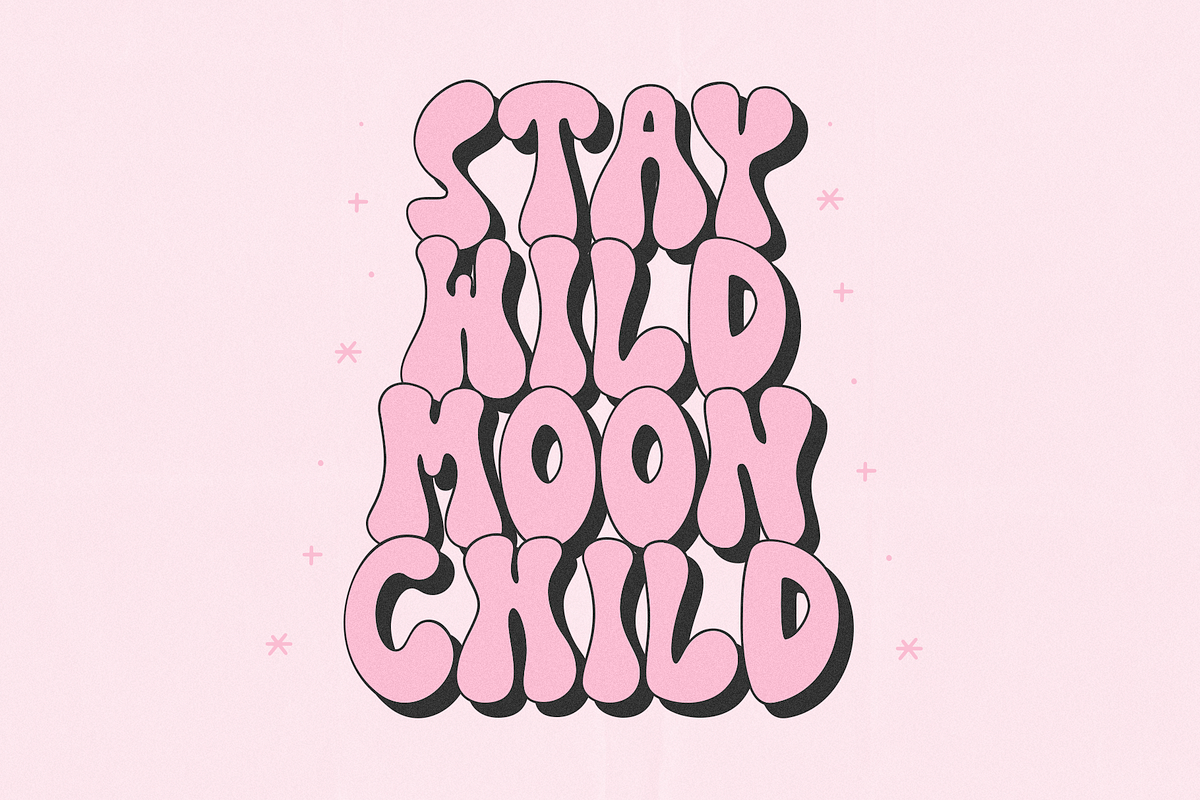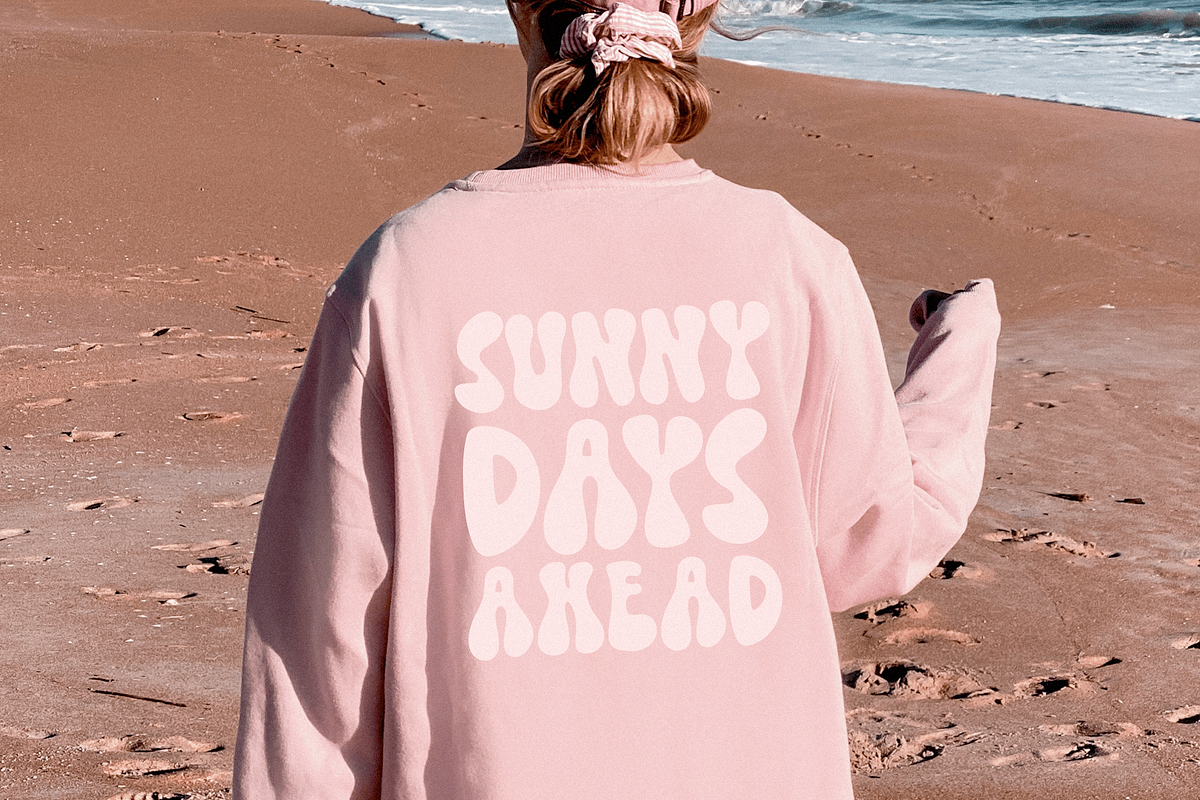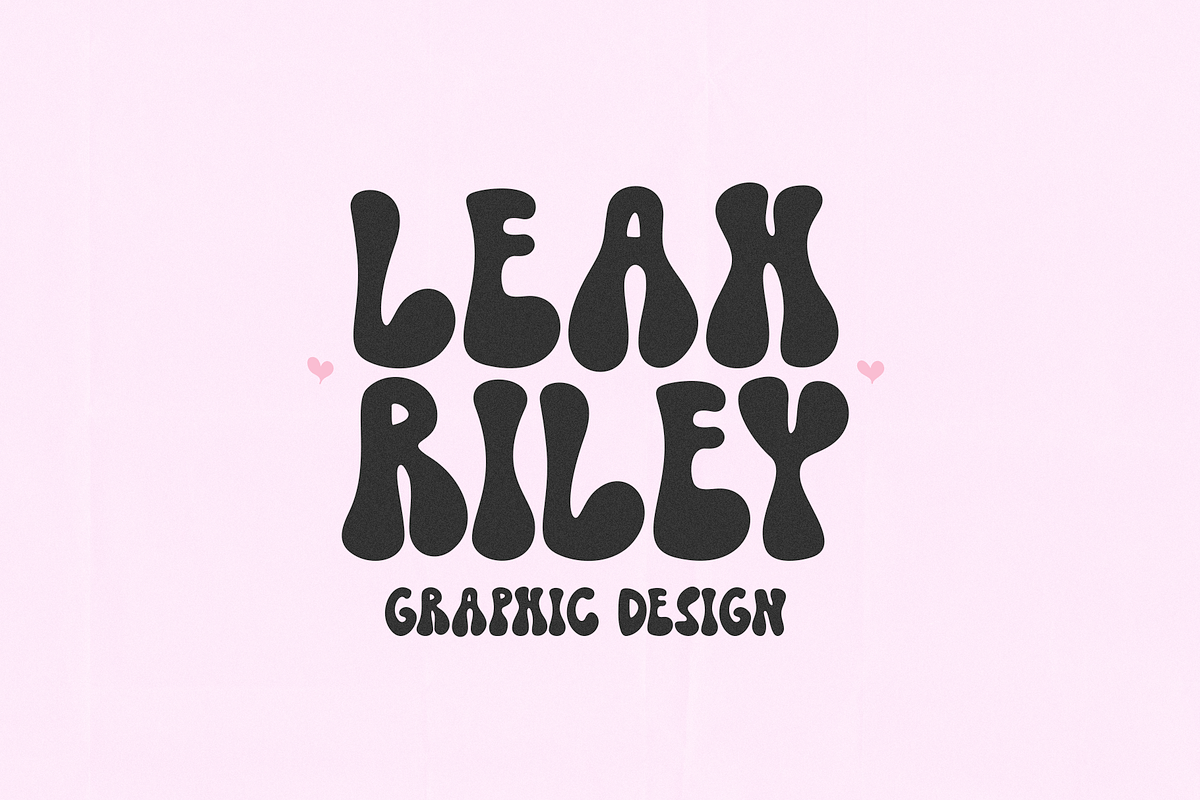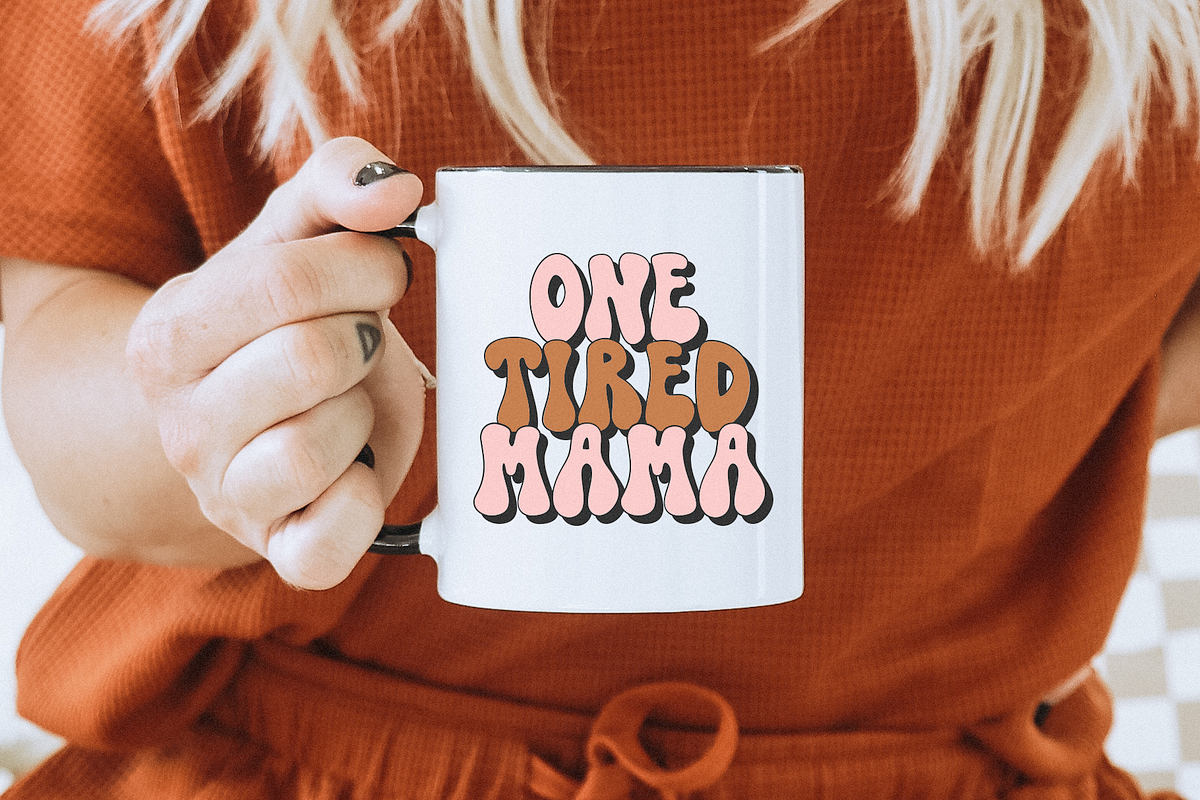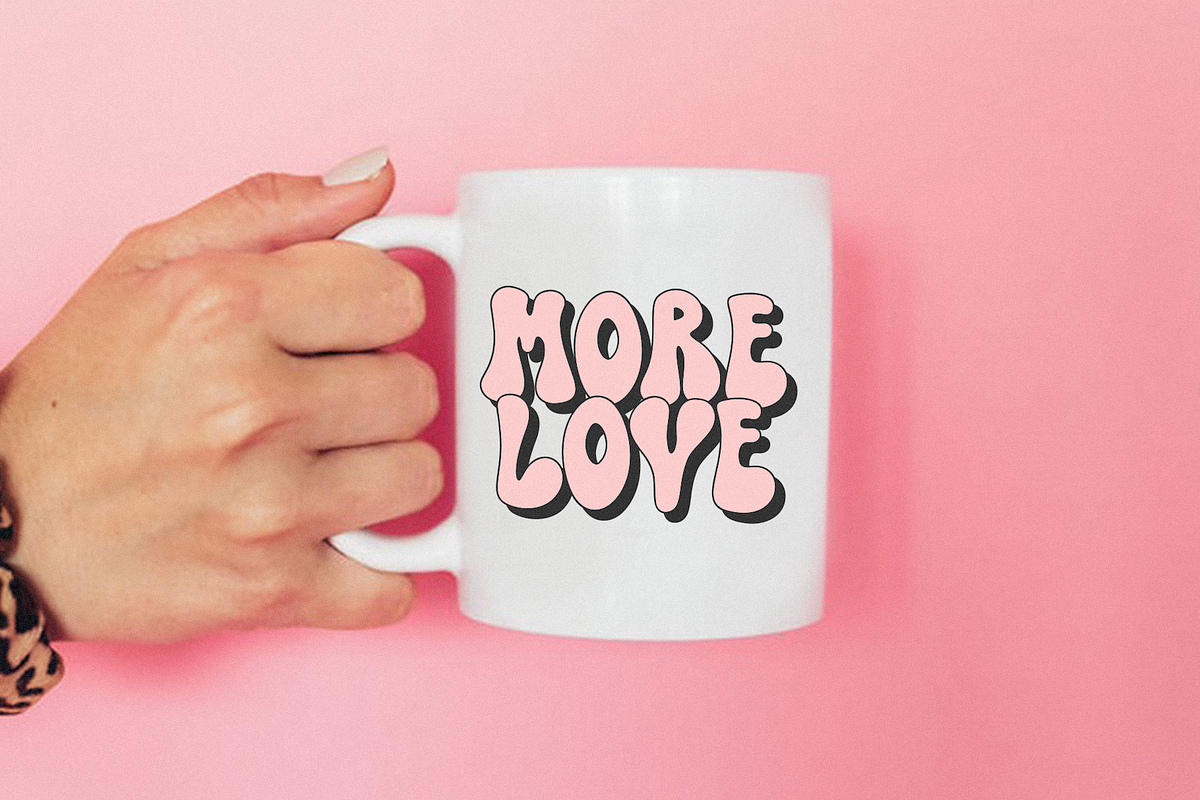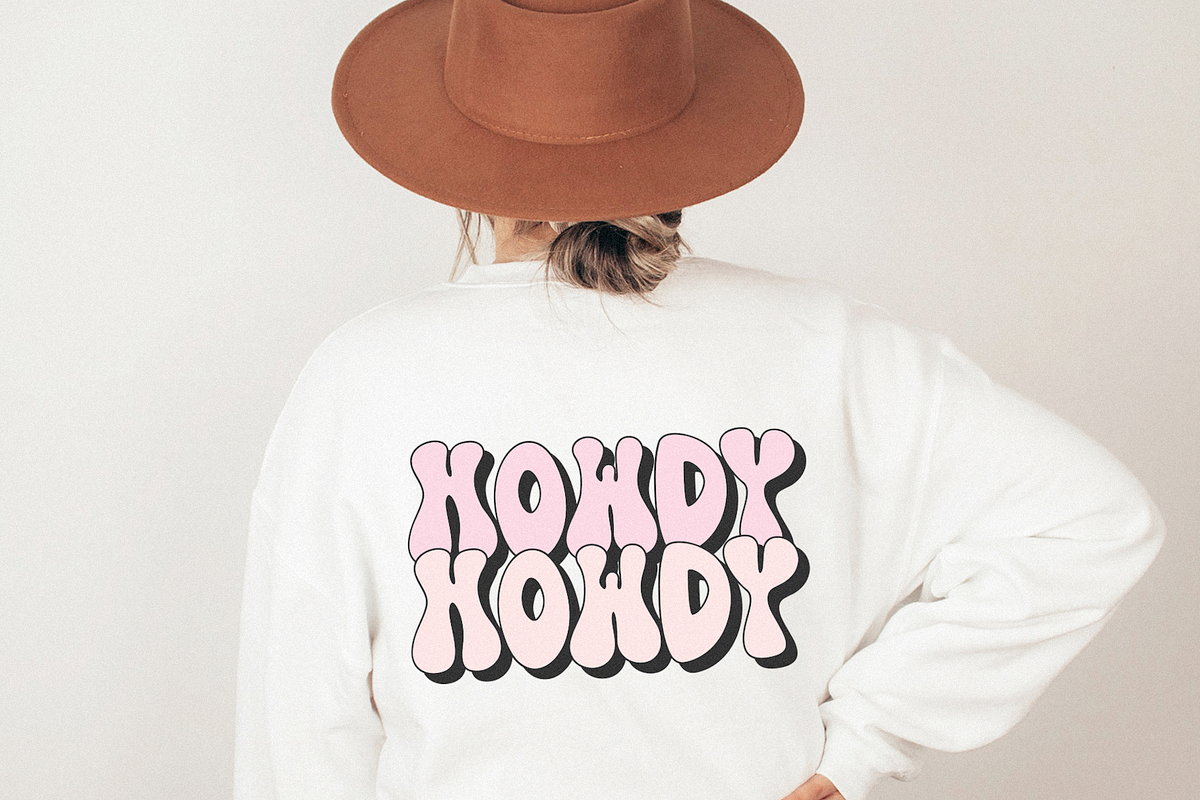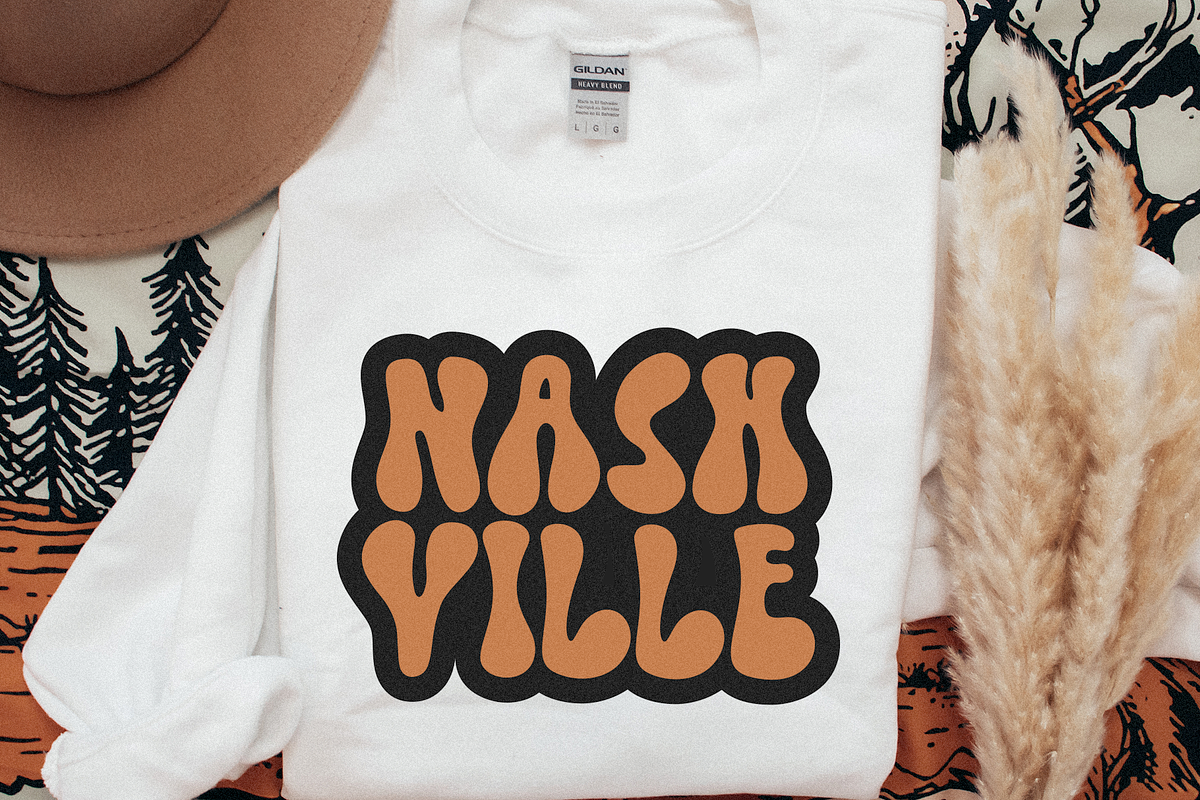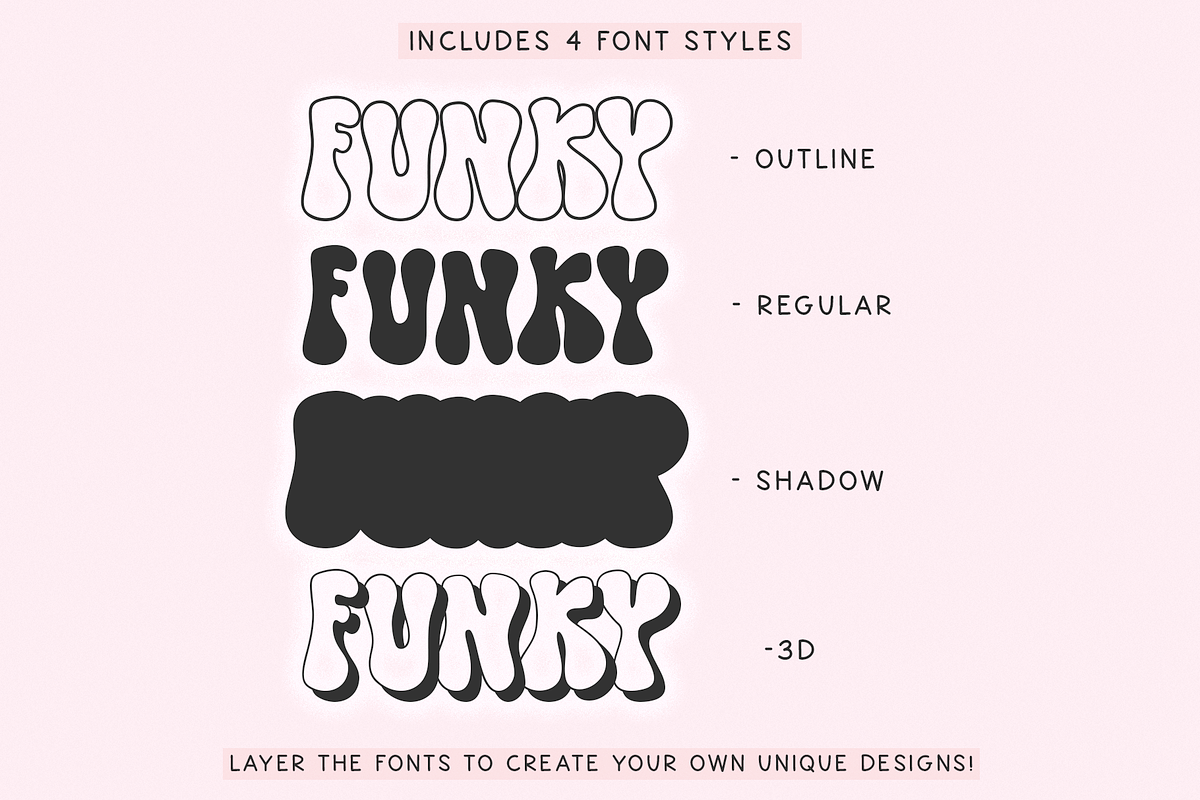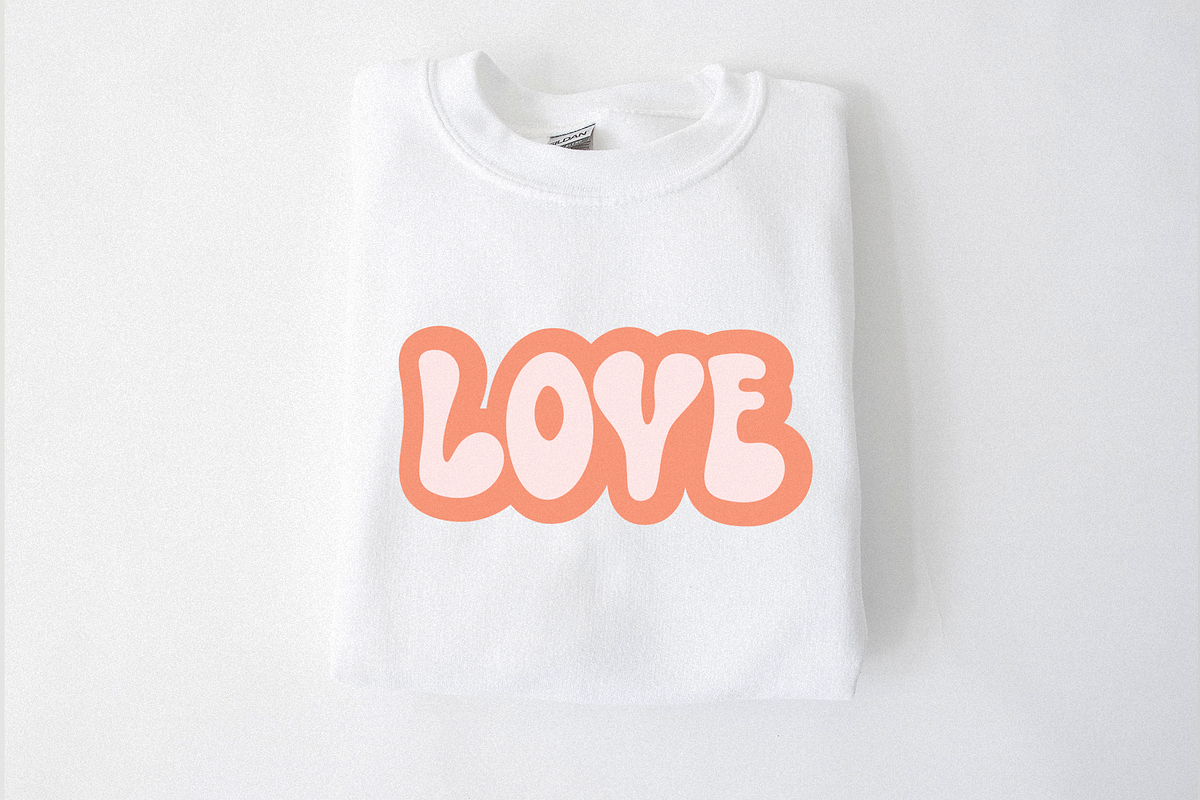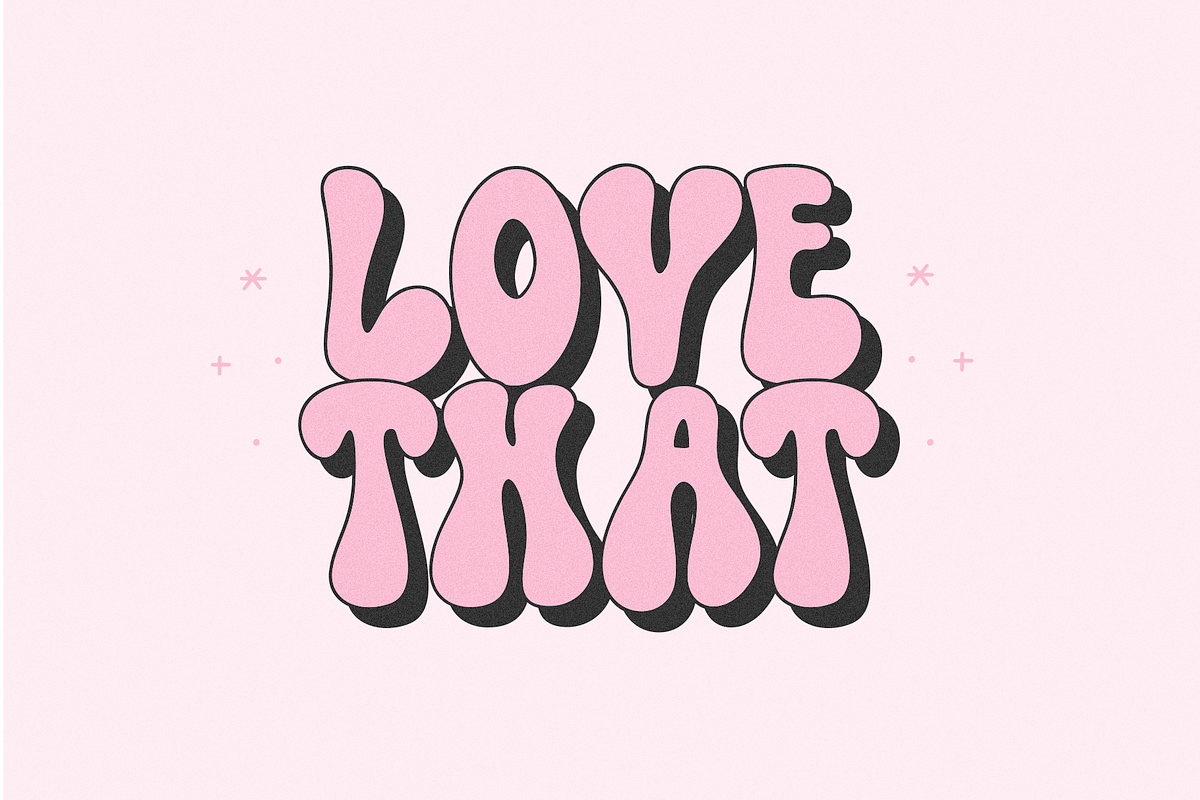
Stay Funky | Retro Font Collection
Stay Funky is a hand-drawn retro font. This font is bubbly and so fun to use!
There are four fonts included
- Shadow
- Outline
- 3D
You can use these four fonts to create your own retro quotes and words!
Stay Funky is perfect for: shirts, svg designs, Cricut projects, retro designs, procreate, stickers, logos, branding, greeting cards, posters, social media, prints and more!
This is an ALL CAPS font.